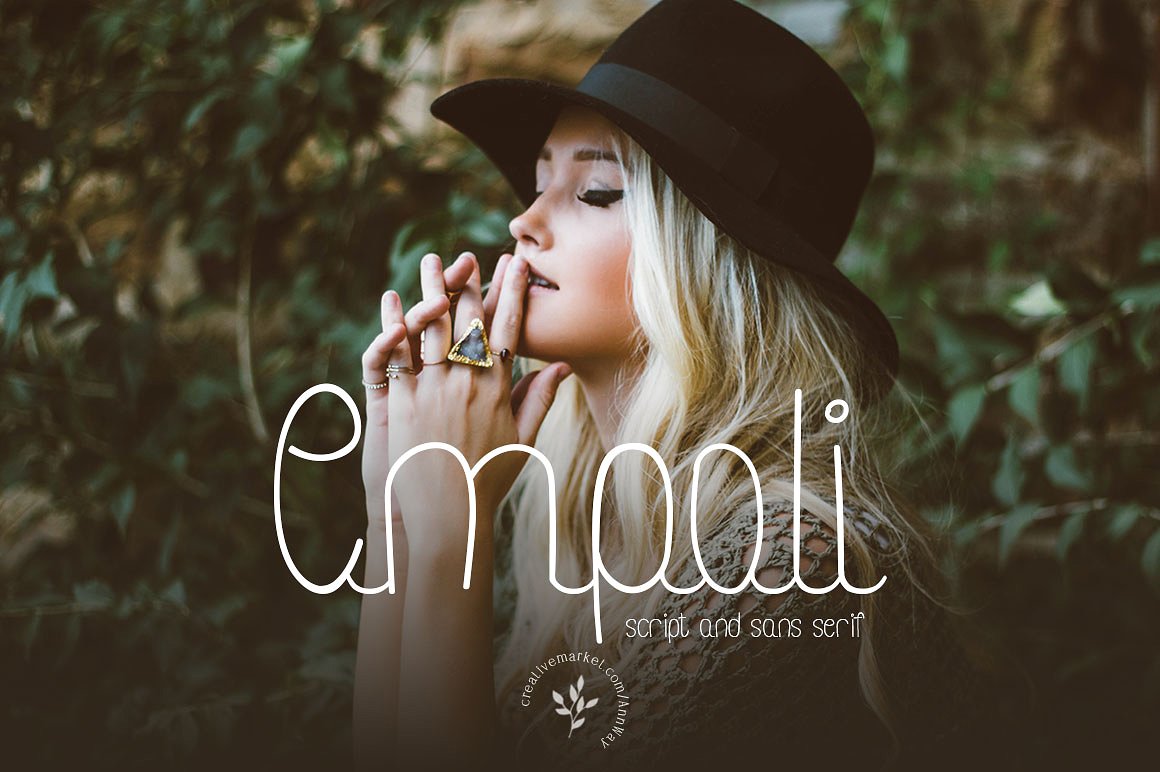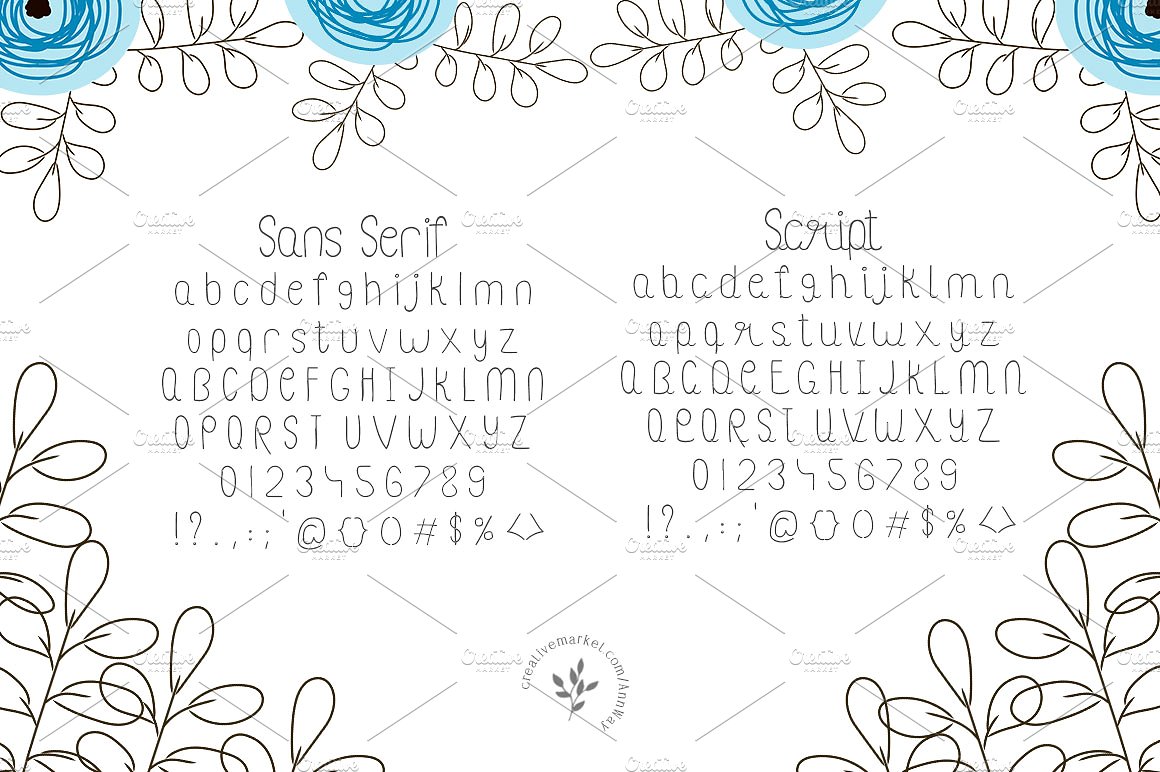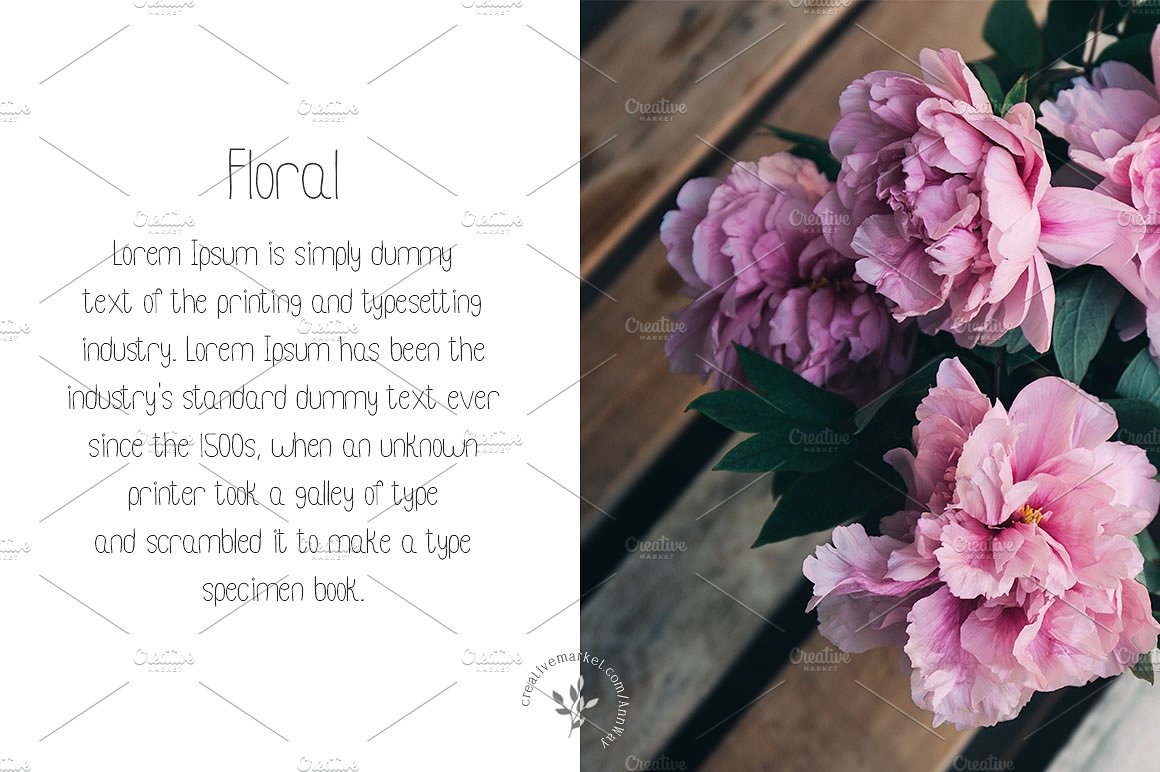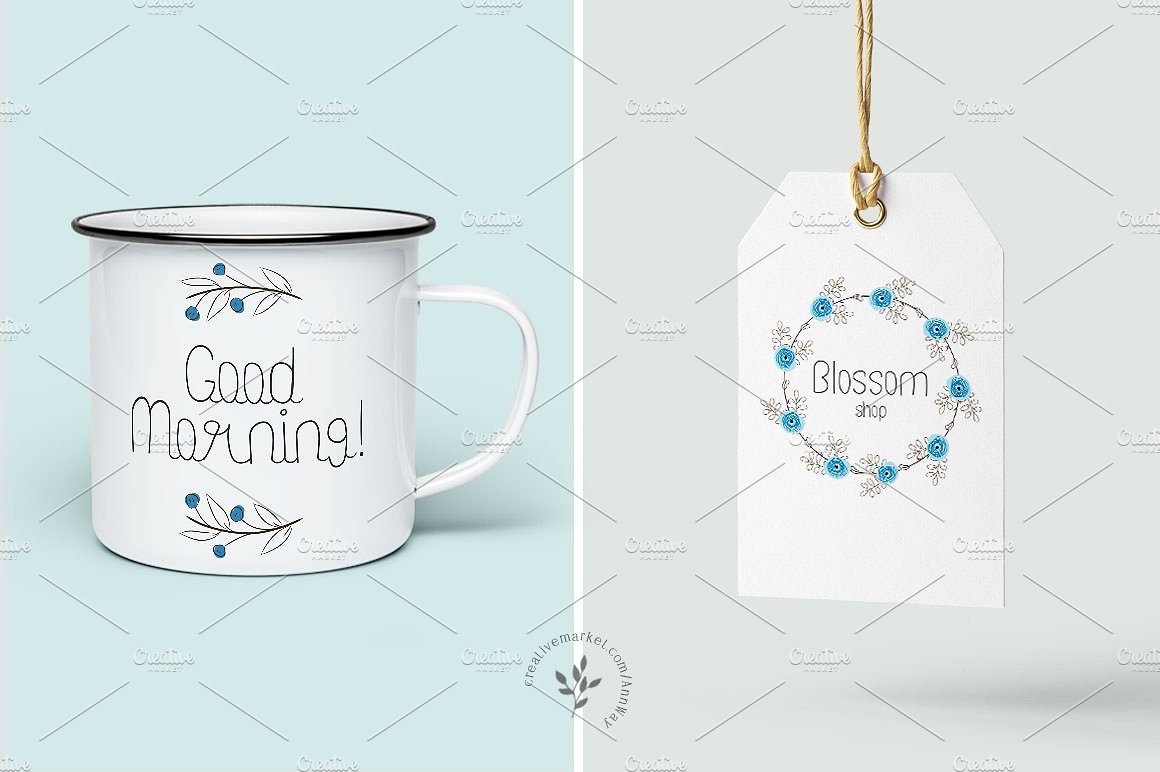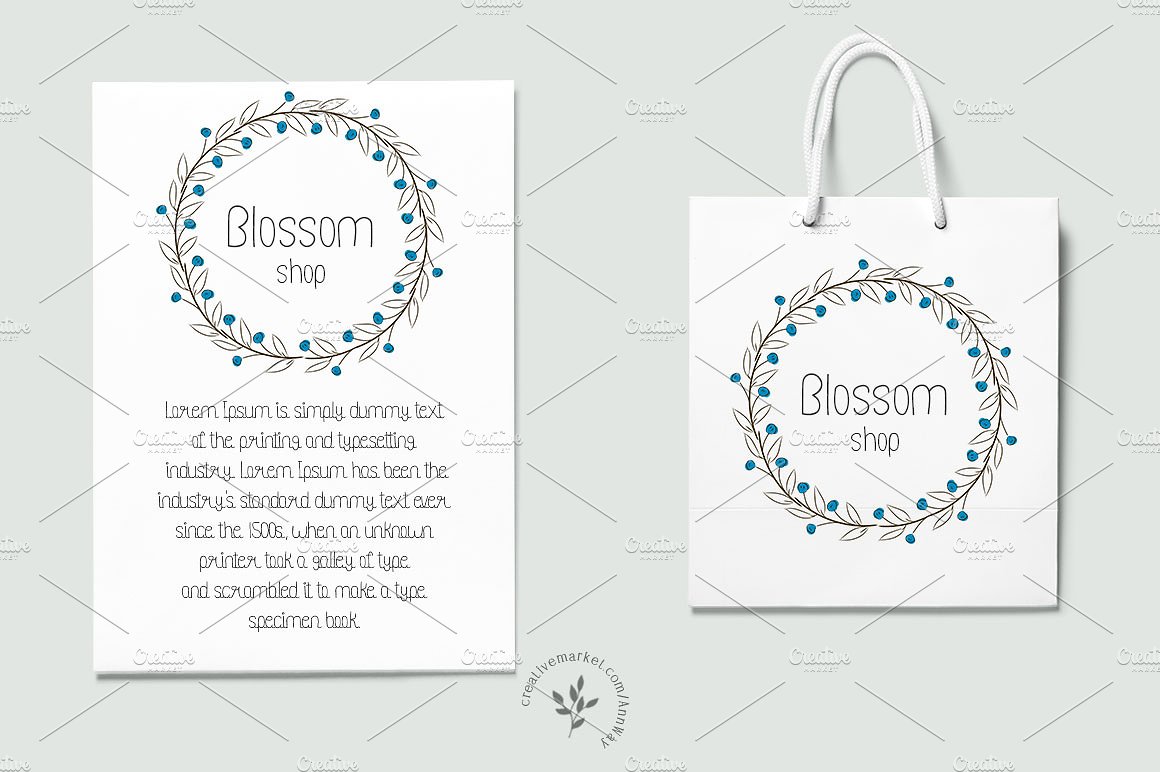
Empoli Script Font
These “Empoli Fonts” is well suited for various design projects, such as logos, advertising, quotes, packaging design and others.
| Classification: | Handwritten Fonts, Script Fonts |